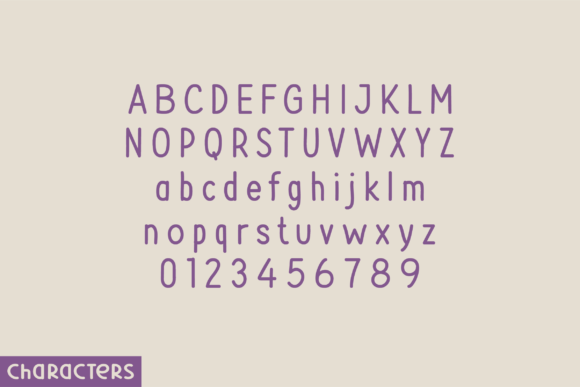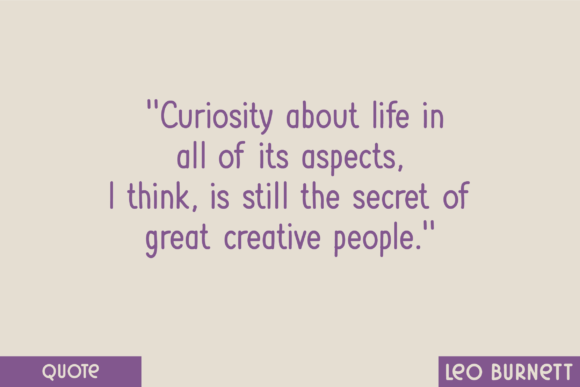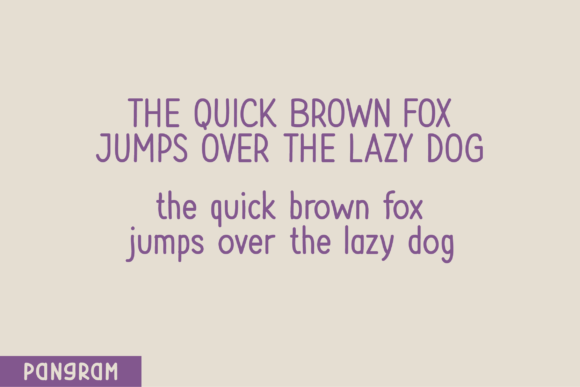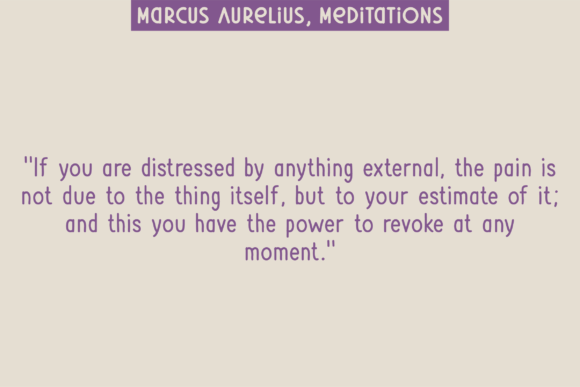
Introduction to Radishes Font
Have you ever stared at a blank canvas, trying to decide on the perfect font to bring your creative project to life? For designers, this moment can be both exhilarating and intimidating. It’s a chance to express ourselves, but also a risk of choosing the wrong font that can make or break the entire design.
That’s why discovering a high-quality font like the Radishes Font can be a game-changer. With its elegant and modern sans serif design, this minimalist font is perfect for a wide range of creative projects, from book covers and magazines to social media posts and invitations. One of the best things about Radishes Font is that it offers a transparent background, making it easy to customize and integrate into any design. And the best part? It’s available for free download, making it an invaluable resource for designers on a budget.
Key Features of Radishes Font
- High-quality design with a unique and creative style, perfect for various design projects.
- Perfect for use in various creative projects, including logos, branding, and advertising materials.
Honest Review: Radishes Font
As a designer, I’m always on the lookout for unique and high-quality design resources. I recently stumbled upon the Radishes Font, and I’m excited to share my honest review with you.
First impressions: the Radishes Font has a quirky and playful vibe that I immediately fell in love with. The font is perfect for creative projects where you want to add a touch of whimsy and personality.
Here’s what works well: ✨
- High-quality vector graphics that scale beautifully
- Transparent background option, making it easy to use on any design background
However, there are a few limitations: ⚠️
- The font is limited to a single weight, which may not be suitable for all design projects
- The characters may not be as detailed as some other fonts, which could be a drawback for some designers
Overall, I’m impressed with the Radishes Font. It’s a great design resource for designers who want to add a touch of personality to their creative projects. While it may have some limitations, the high-quality vector graphics and transparent background make it a valuable addition to any designer’s toolkit.
The Radishes Font is ideal for creative projects, such as graphic design, digital art, and typography-based art. It’s also suitable for use in presentations, documents, and websites that require a high-quality, unique font.
Alternatives to Radishes Font
Noto Sans is a high-quality, sans-serif font suitable for various creative projects, including digital designs and print materials. It offers a clean and modern look, ideal for logos, headings, and body text. Noto Sans is free to download and supports multiple languages, making it a versatile design resource.
Compared to Radishes Font, Noto Sans provides a more traditional sans-serif look, whereas Radishes Font offers a unique, hand-drawn feel. Noto Sans is suitable for projects requiring a more professional and neutral tone.
Lato is a modern sans-serif font that works well for creative projects, such as branding, advertising, and editorial designs. It features a clean and elegant design, suitable for use in headings and body text. Lato is free to download and supports various languages.